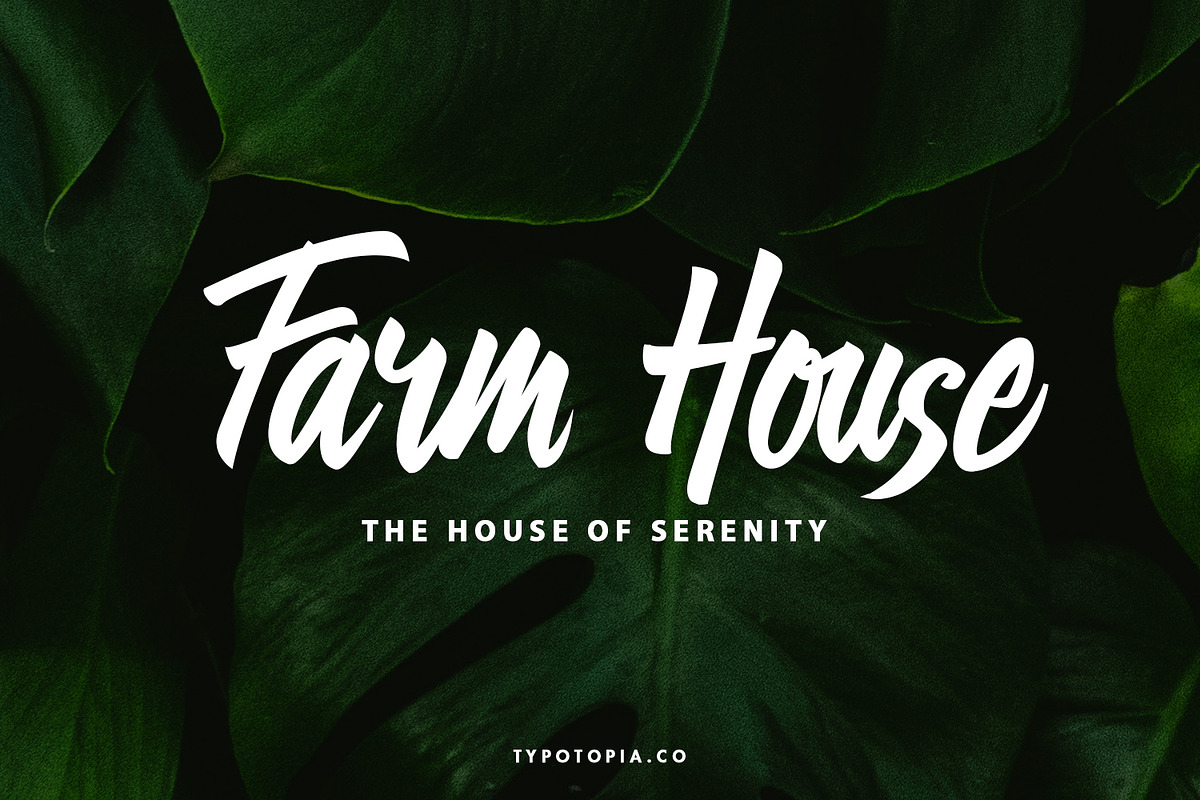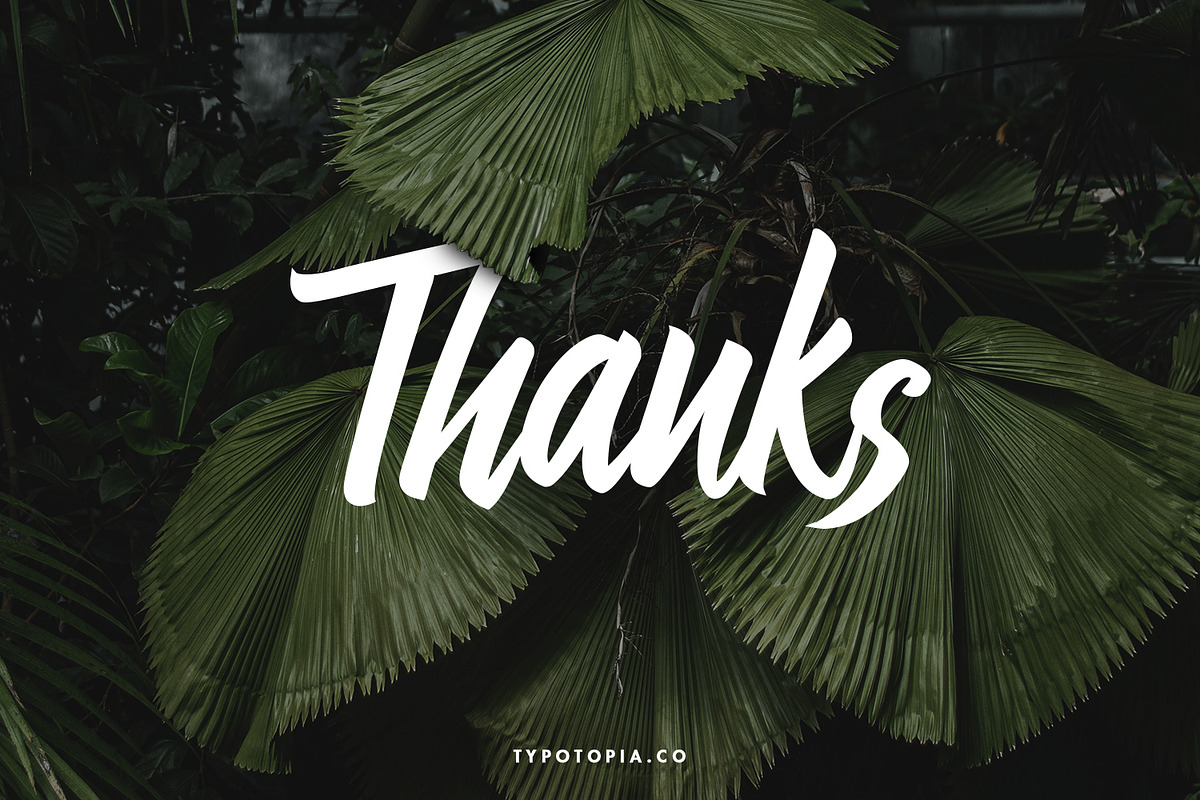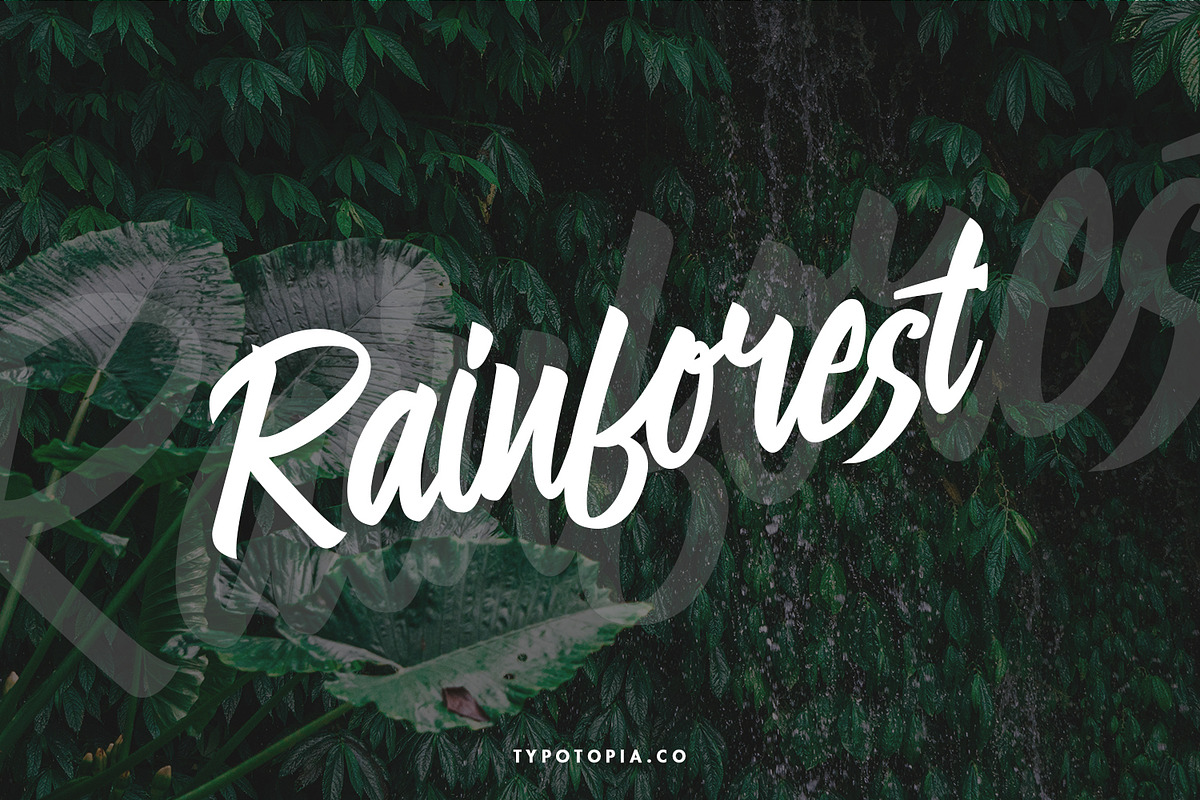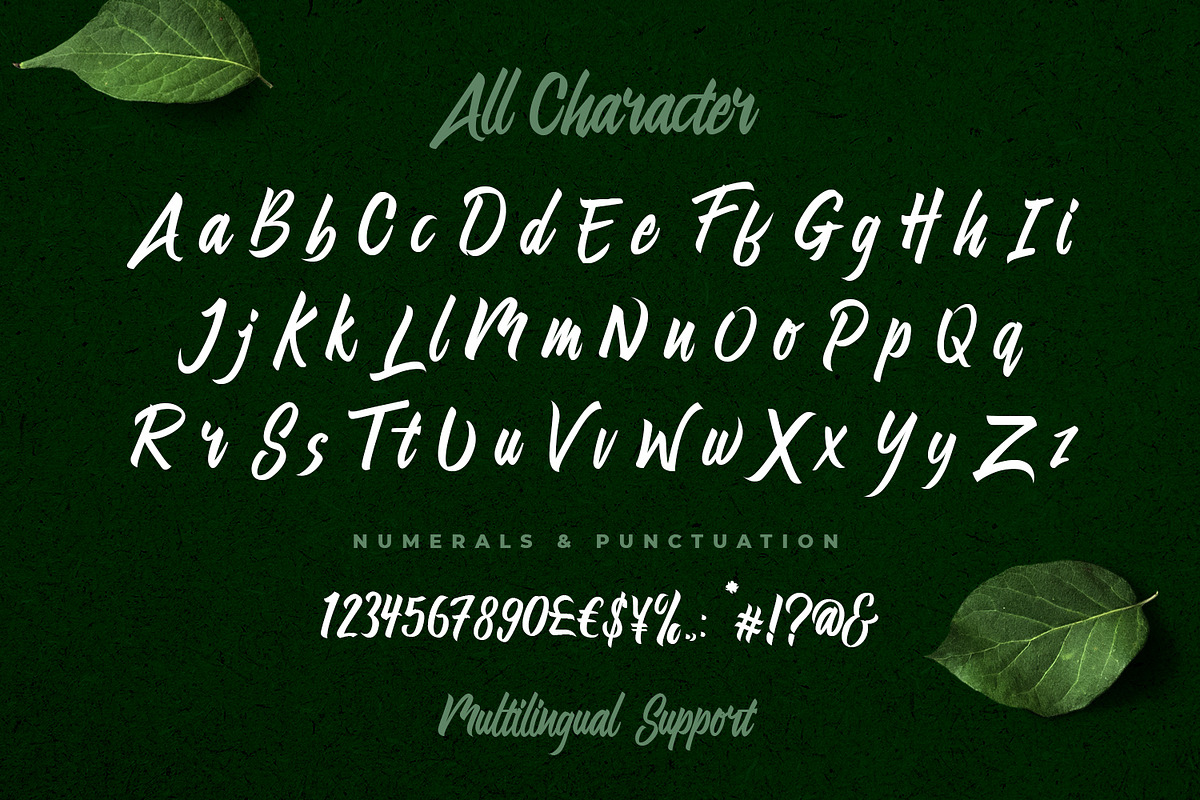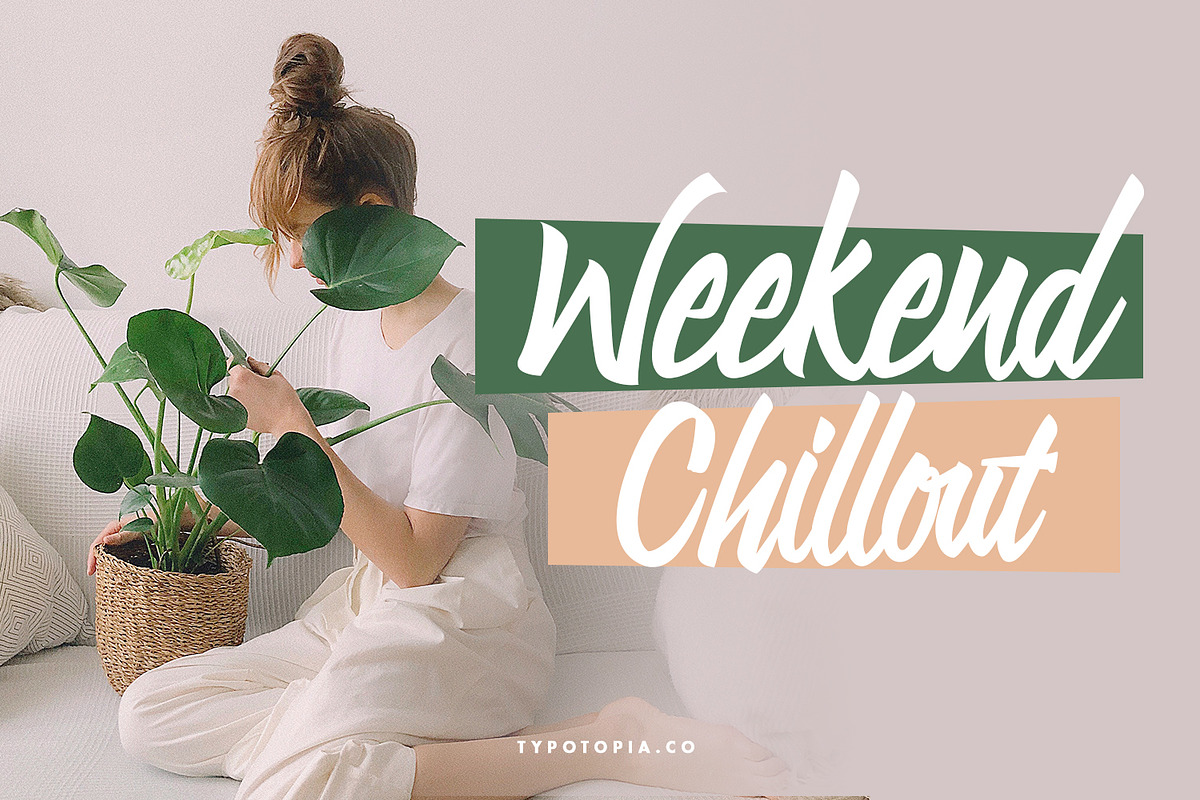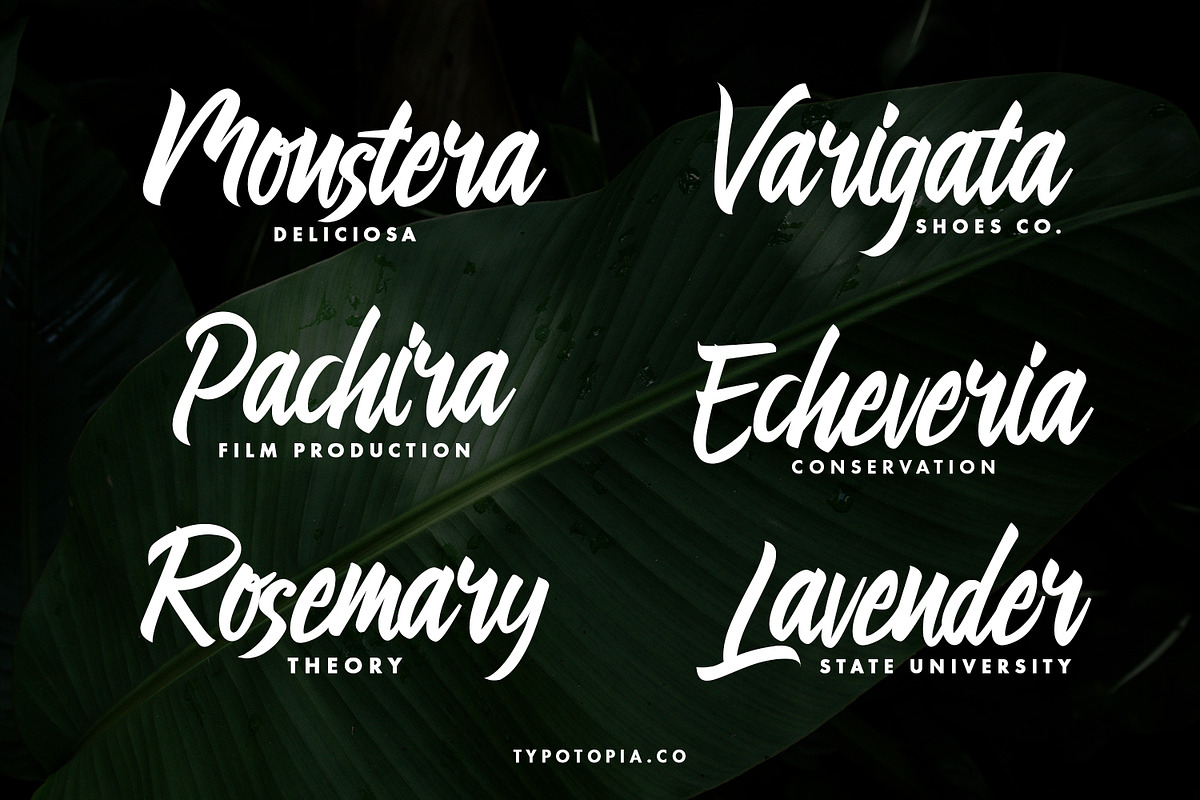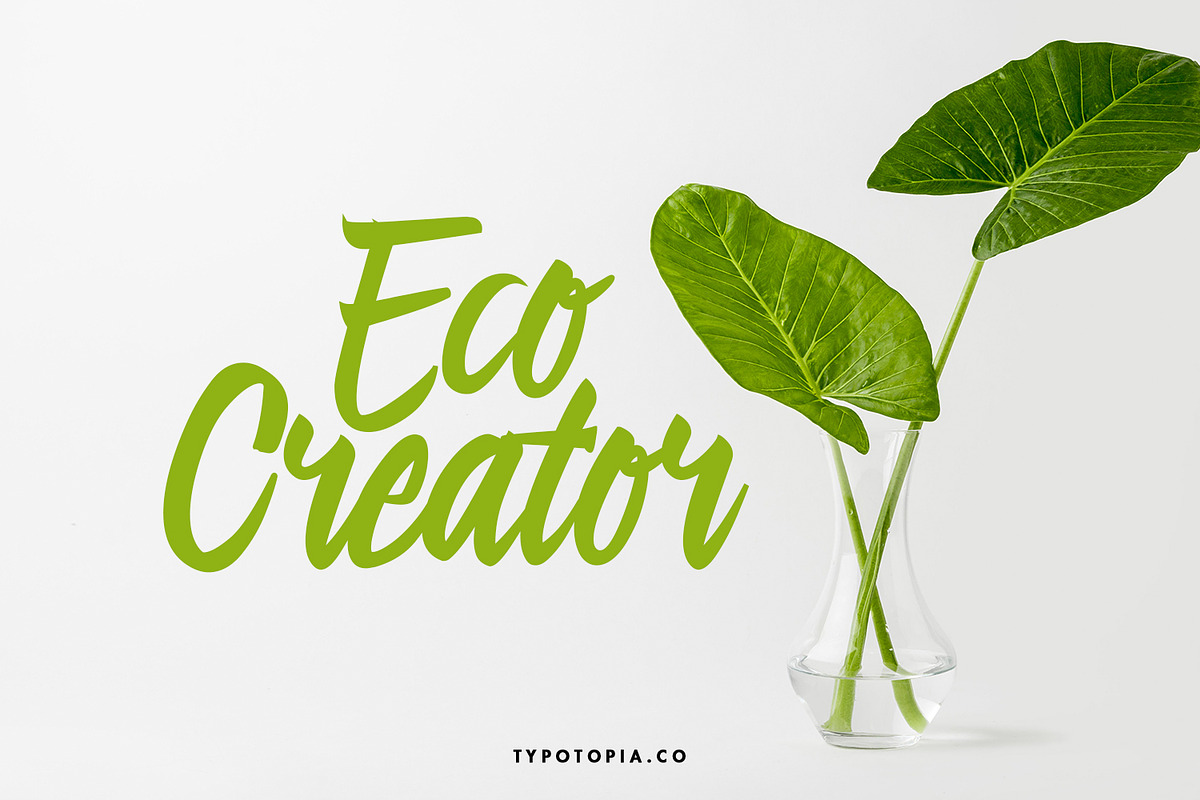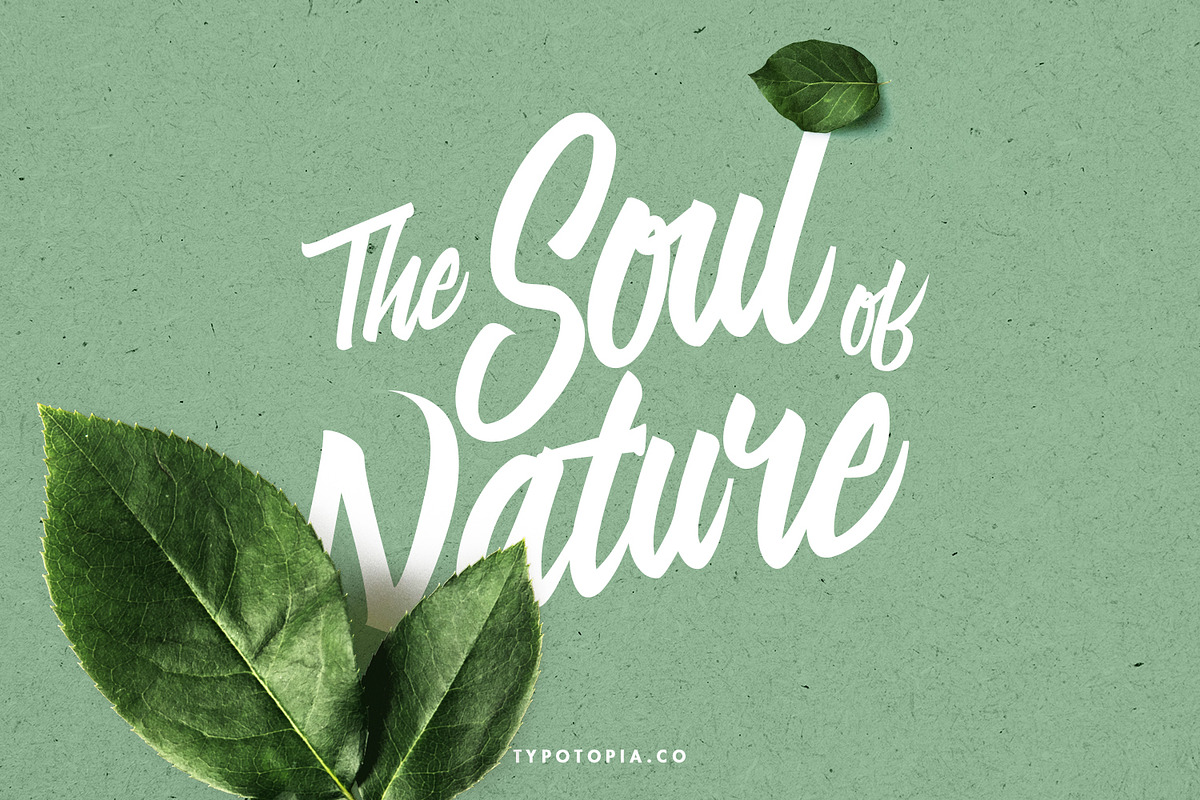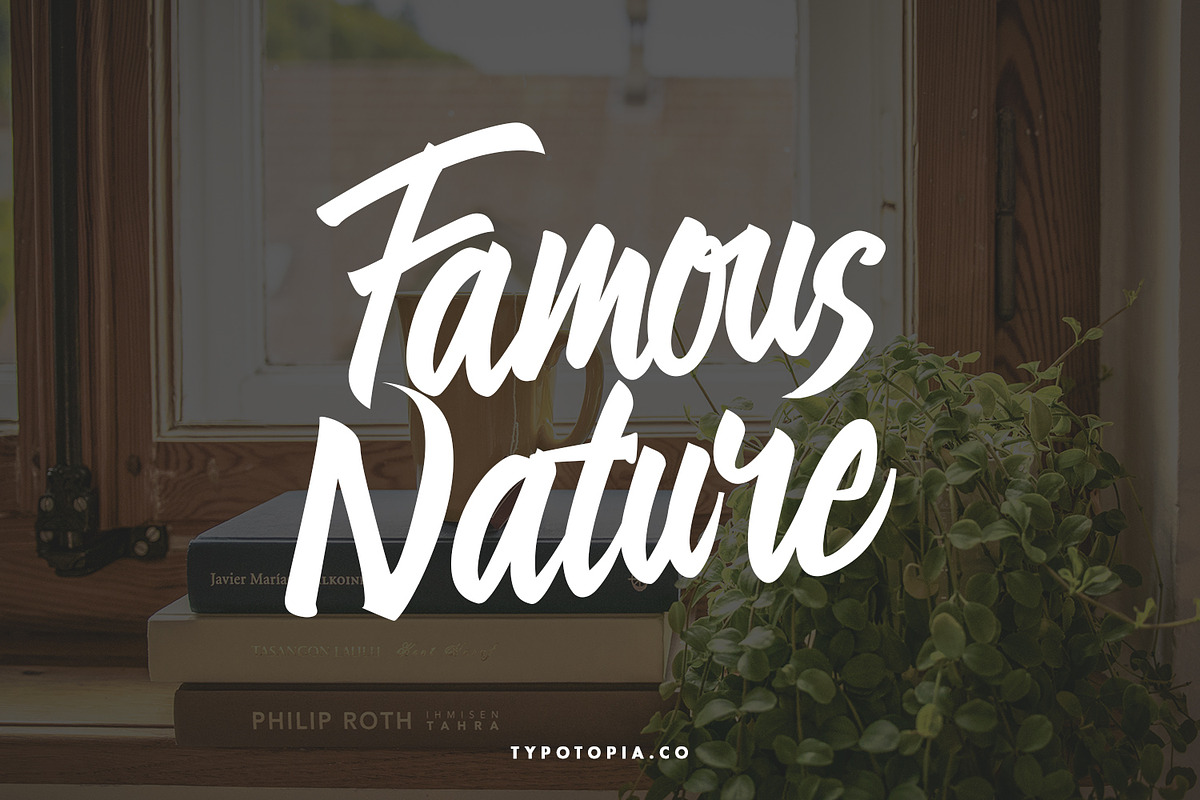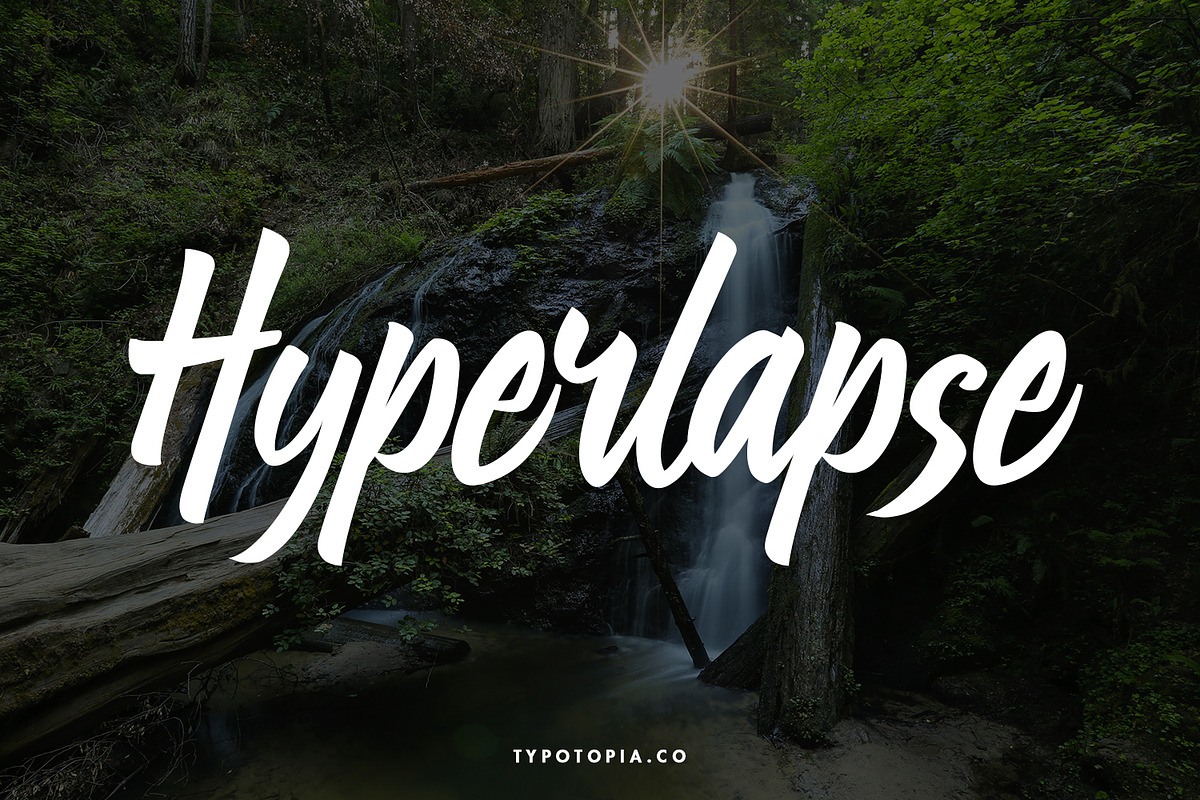
Linimasa - Modern Script Font
Typotopia Proudly Present Linimasa The Modern Script Font. This Fonts Comes is a bold connected script font with a clear style and dramatic movement. Every single letters have been carefully crafted to make your designs looks better.
Linimasa Font is the great choice for several purpose, such as watermark, logo, business card design, quotes, album cover, invitation letter, stationery, and many other design project that need handwriting taste.
Linimasa also Support Multilingual Feature for Foreign Language, here’s the list : áäåãéèëìïîòöôøùüAÀÁÂÃÄÅEÈÉÊËIÌÍÎÏNÑOÒÓÔÕÖUÙÜÚÛYÝŸ?Ÿ
- Uppercase & Lowercase letters